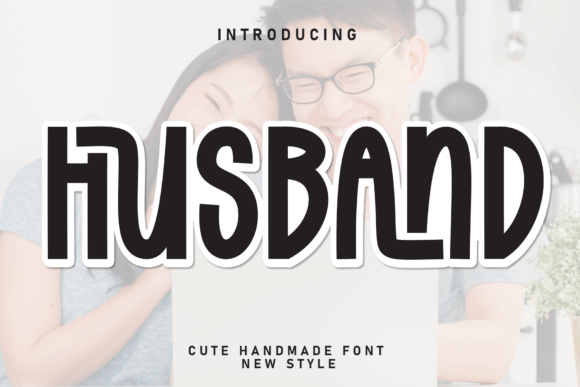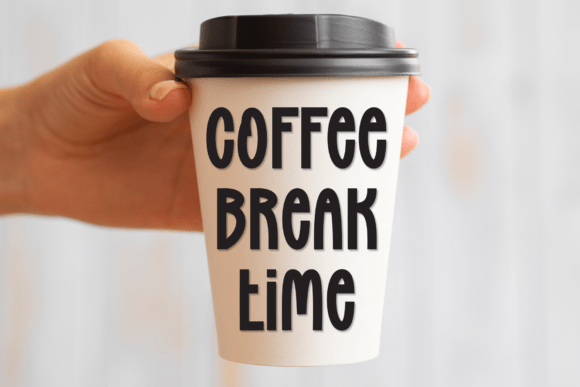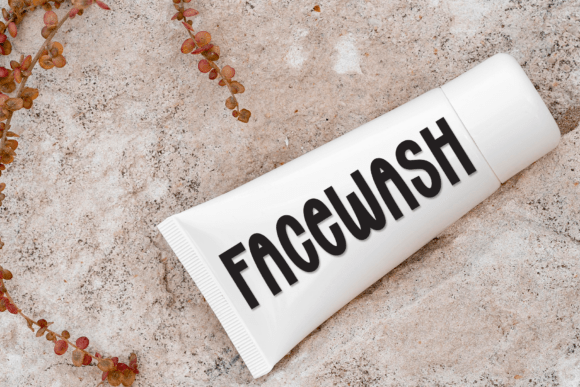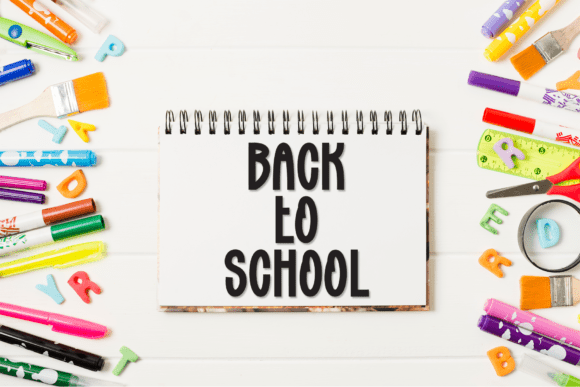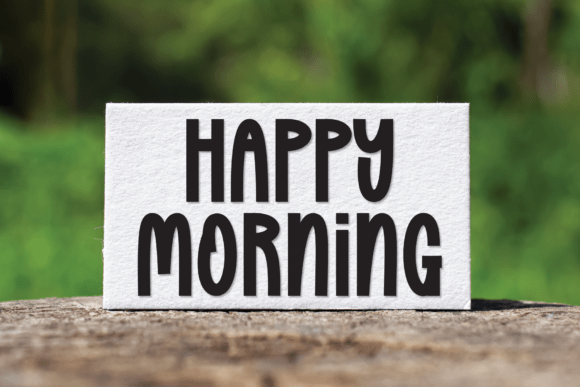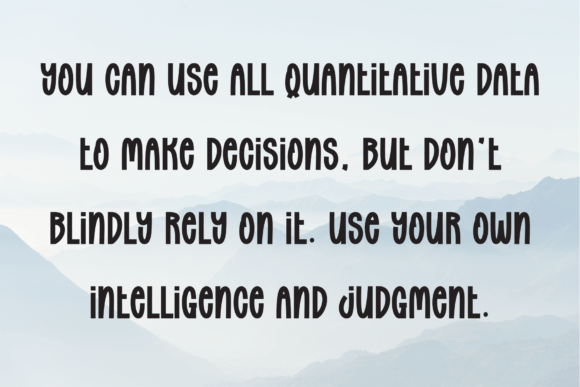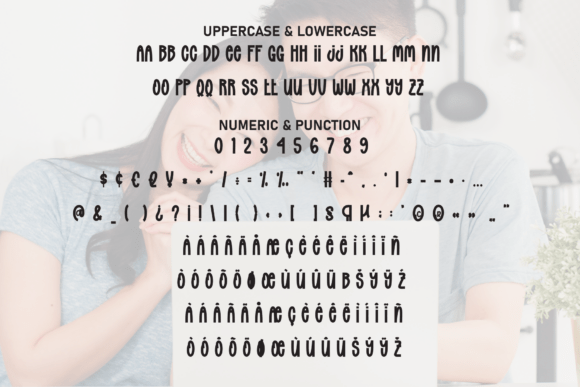
The Perfect Blend of Modern Charm and Handcrafted Warmth
Have you ever sat at your desk, staring at a blank screen, trying to find the perfect font to capture the essence of your latest project? You scroll through endless options, but nothing seems to stick. That’s when it hits you – the perfect font is out there, waiting to be discovered. For designers and creatives, finding that special font can be a game-changer, setting the tone for an entire brand or design project.
Enter the Husband Font, a beautiful, handmade typeface that embodies the perfect balance of modern charm and handcrafted warmth. With its unique, interconnected aesthetic, this font is a breath of fresh air in the world of typography. Perfect for family-focused branding, personalized gifts, and wedding anniversary stationery, the Husband Font is an ideal choice for designers looking to add a touch of personality to their projects.
Husband Font Key Features
- Font Family: Husband Font is a sans-serif typeface, designed to be modern and clean.
- Unique Characteristics: The Husband Font features a unique blend of modern and vintage elements, with a distinctive x-height and geometric shapes, making it stand out in design and typography.
- Style Variations: The font includes several style variations, including regular, italic, bold, and bold italic, providing users with a range of options to suit different design needs.
Husband Font Review
At first glance, the Husband Font seems like a quirky and playful addition to any digital project. ✨ Its unusual combination of rounded edges and sharp lines gives it a unique character that can add some personality to your designs. I particularly appreciate the way it interacts with text, making it stand out in a crowded digital landscape. ✨
One of the standout features of the Husband Font is its versatility. It works well in a variety of contexts, from body text to headings, and even in logo design. The font’s bold lines and rounded edges make it perfect for creating a sense of energy and dynamism. ✨
- ⚠️ Limited legibility in small font sizes: The Husband Font can be challenging to read at small font sizes, which may limit its use in certain contexts.
- ⚠️ Not ideal for long blocks of text: The font’s unique character can make it difficult to read large blocks of text, as the rounded edges can cause the text to appear cluttered.
Overall, the Husband Font is a fun and quirky addition to any design project. While it may have some limitations, its unique character and versatility make it a great choice for designers looking to add some personality to their work. With careful use and consideration, the Husband Font can be a valuable tool in any designer’s toolkit.
The Husband Font is ideal for adding a playful touch to designs, such as memes, social media graphics, and humorous illustrations. To get the most out of the font, experiment with different font sizes, colors, and styles to create a unique and eye-catching design. The font is also suitable for use in presentations, reports, and other documents where a touch of humor is needed.
Alternatives to Husband Font
Didot is a classic serif font often used for formal or luxury branding. It has a more elegant and refined feel compared to Husband Font, which is more rustic and vintage. Use Didot for high-end products, luxury brands, or formal invitations.
Comparison: Didot has a more elegant and refined feel, whereas Husband Font has a more rustic and vintage feel.